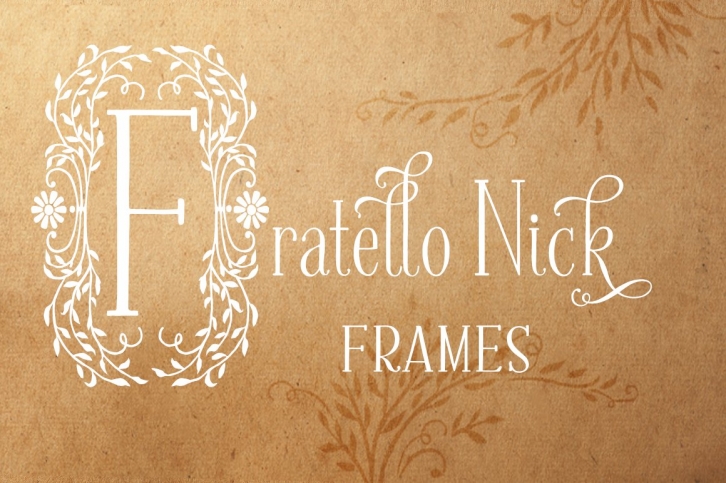
Fratello Nick Frames are full of charm and whimsy. They can easily be used with the Fratello Nick Monogram font to create a unique look for any type of project. Read the story further down of the inspiration behind the Fratello Nick family.
Here’s the story of the inspiration behind the font:
Once upon a time, there was a red headed boy named Nicolas who loved to read books. So his mother would have him curl up in her lap and read to his heart’s content. And this made Nicolas a very happy boy.
The years have passed and Nicolas now goes by Nick. He went to college in Washington, D.C. where he became a Nationals fan. He lives and works there and knows the Metro like the back of his hand. But he can smoke a rack of ribs like the true Texas boy he is. He still loves to read. And that makes Nick a very happy man.
His mom (me) was inspired to hand letter this font to honor this boy she loves so much. Because raising a boy who becomes a wonderful man is something to celebrate. The moral of the story? Cuddling with books always leads to good things.
I hope Fratello Nick will be a part of helping you create stories of your own!